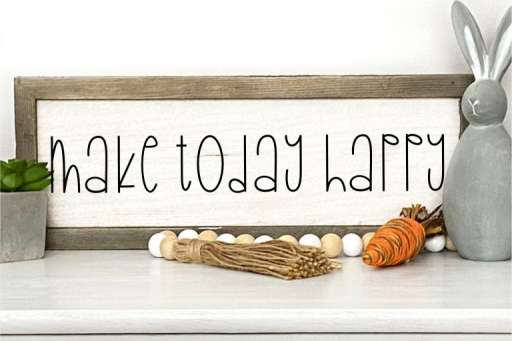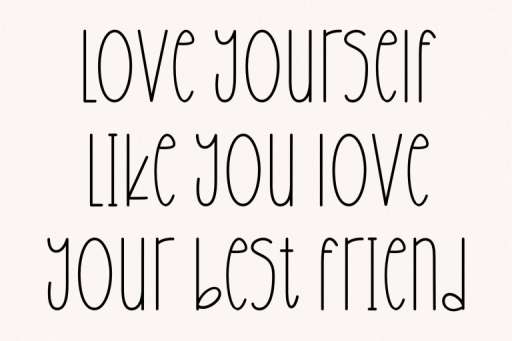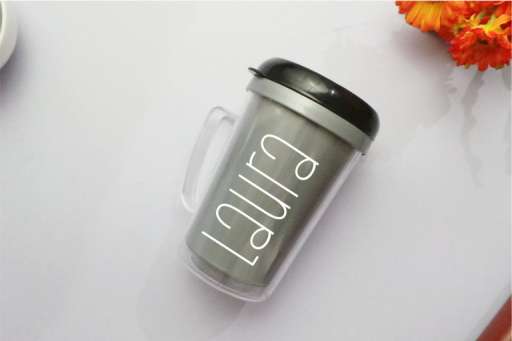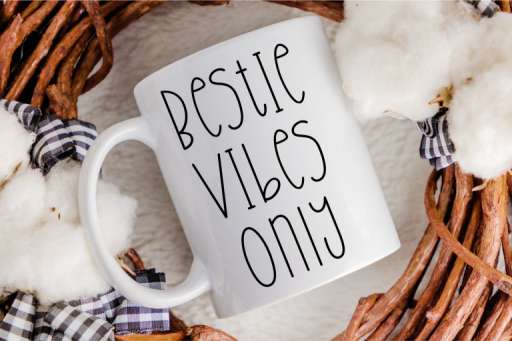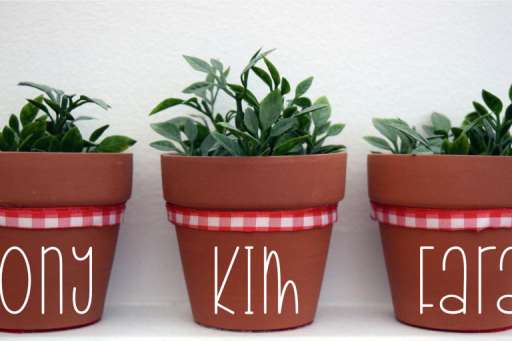
Raemoon – Rae Dunn Farmhouse Font Jimtype Studio
Raemoon is a tall and skinny font perfect for signs! Simple and versatile, this font is perfect for chic farmhouse decor look, home decor, cards, and farmhouse living.